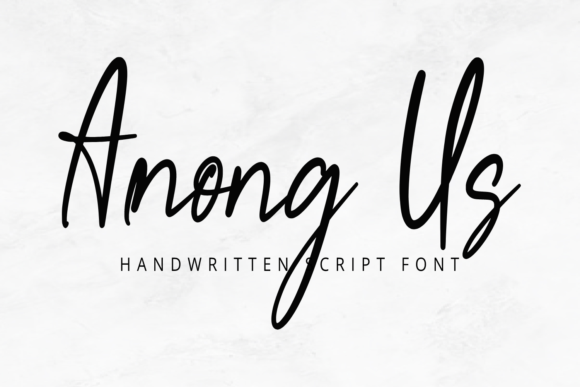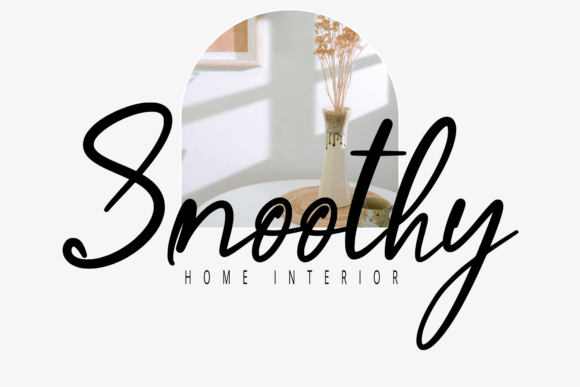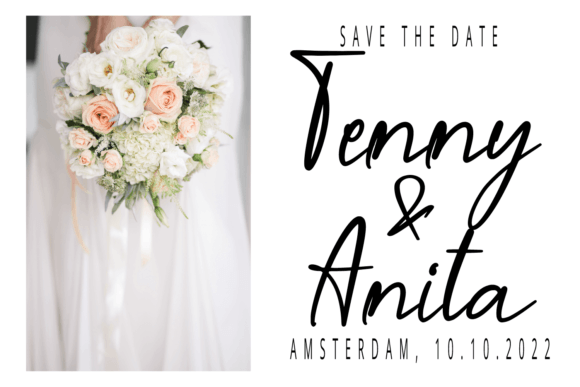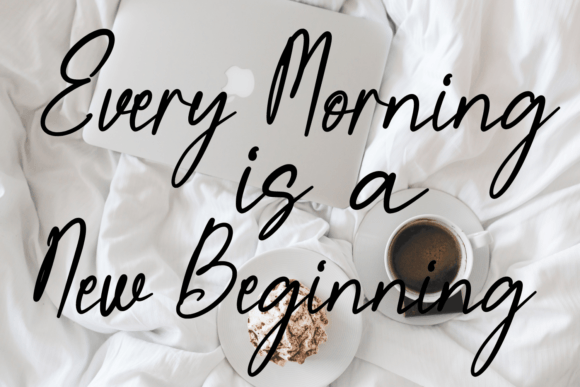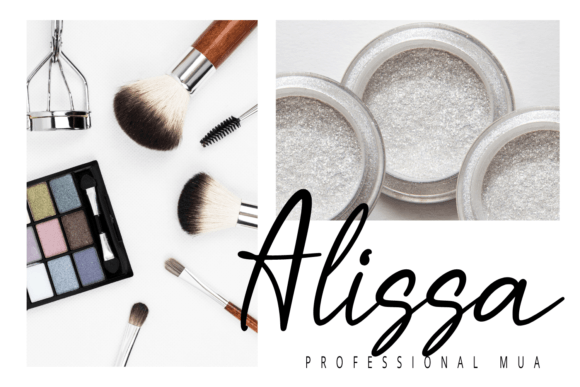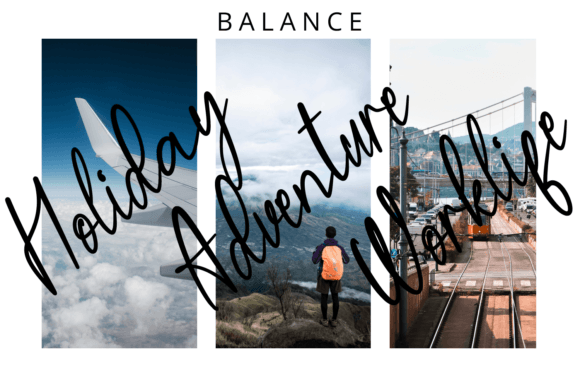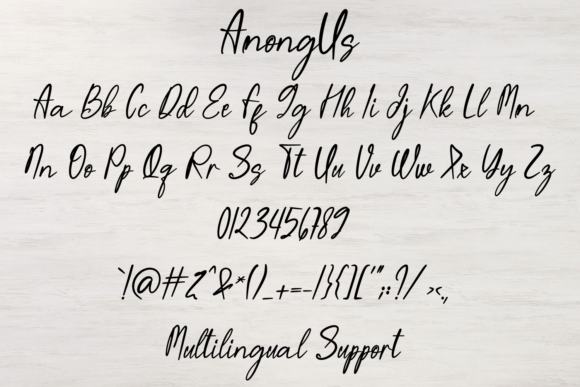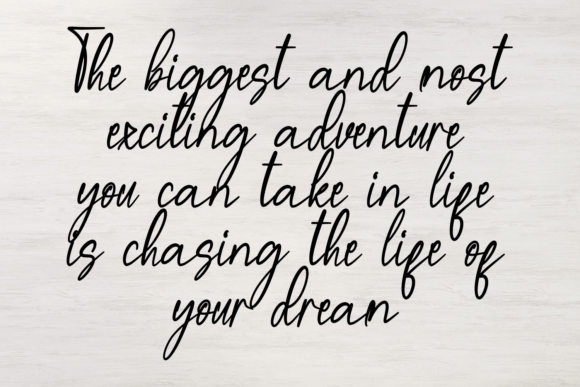
Among Us Font
About Among Us Font
Among Us is a delightful and refined script font that radiates elegance and sophistication. It has been meticulously crafted to offer a beautiful and refreshing look to your designs. This font is specifically tailored for those seeking a handwritten touch that exudes charm and grace. Its stunning appearance makes it ideal for a wide range of applications, including wedding invitations, thank you cards, quotes, greeting cards, logos, business cards, and any other design that benefits from a touch of handwritten elegance.
The font’s delicate and graceful strokes create a sense of timeless beauty, making it perfect for projects that require a touch of sophistication. Whether you’re designing a wedding invitation that demands elegance or crafting a memorable logo for your business, Among Us adds a layer of class and authenticity to your text.
Embrace the beauty of Among Us in your designs, and let its lovely and delicate script enhance your creative endeavors. Whether you’re working on personal or professional projects, this font is sure to elevate your designs, leaving a lasting impression on your audience. Let Among Us bring a touch of elegance and charm to your typography, making your creations truly stand out.